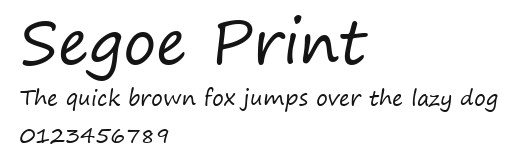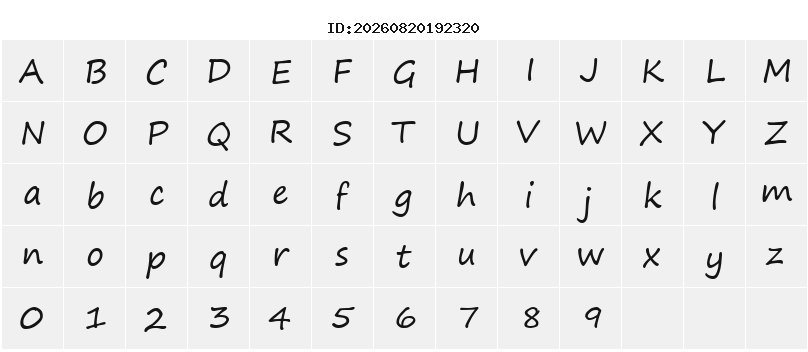
• Font Name: Segoe Print
• Manufacturer: Microsoft Corporation
About Segoe Print.ttf
Segoe Print.ttf is a modern, elegant sans-serif font designed for ultimate readability and visual harmony. Perfect for branding, headlines, web design, and print materials.